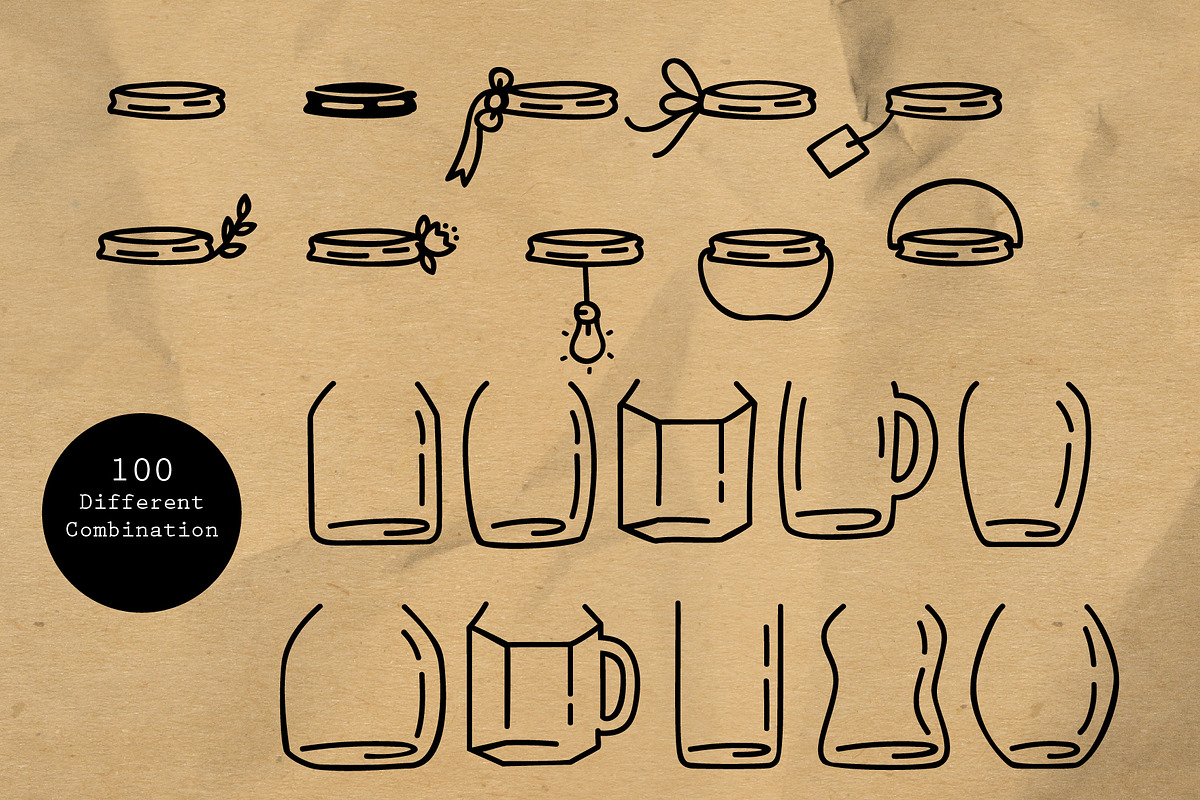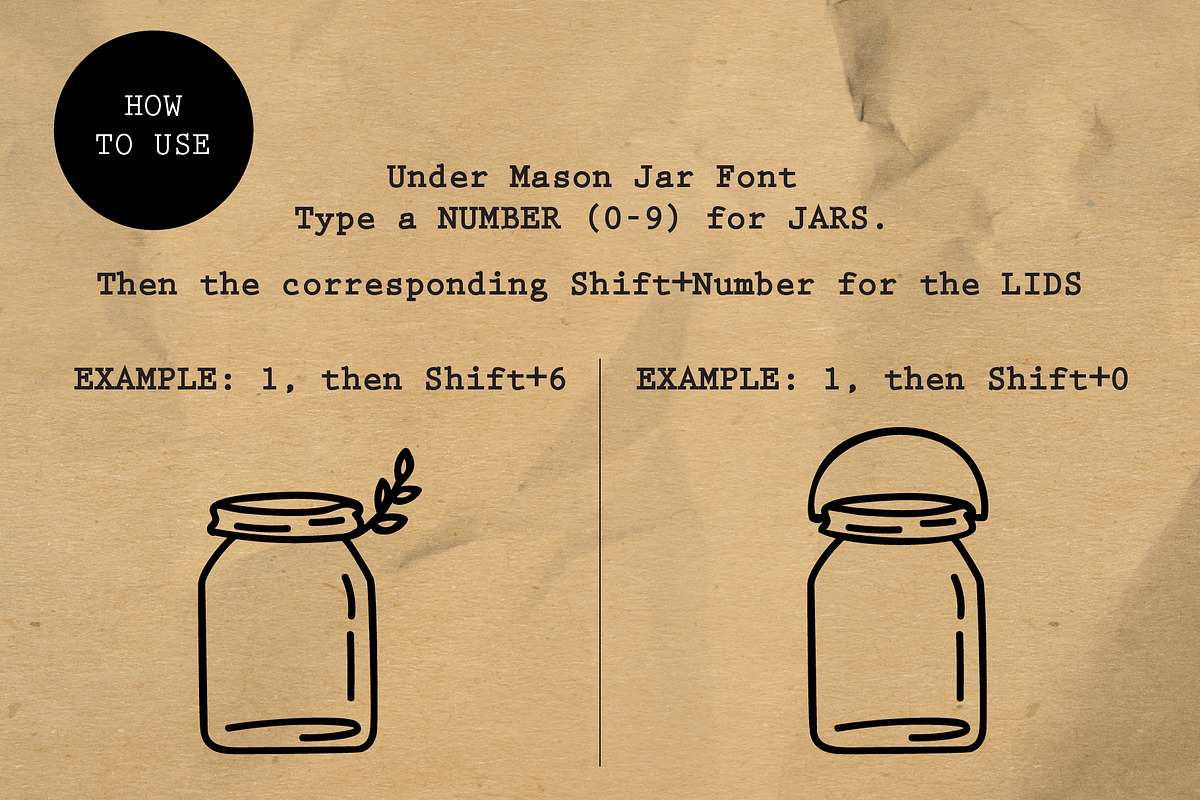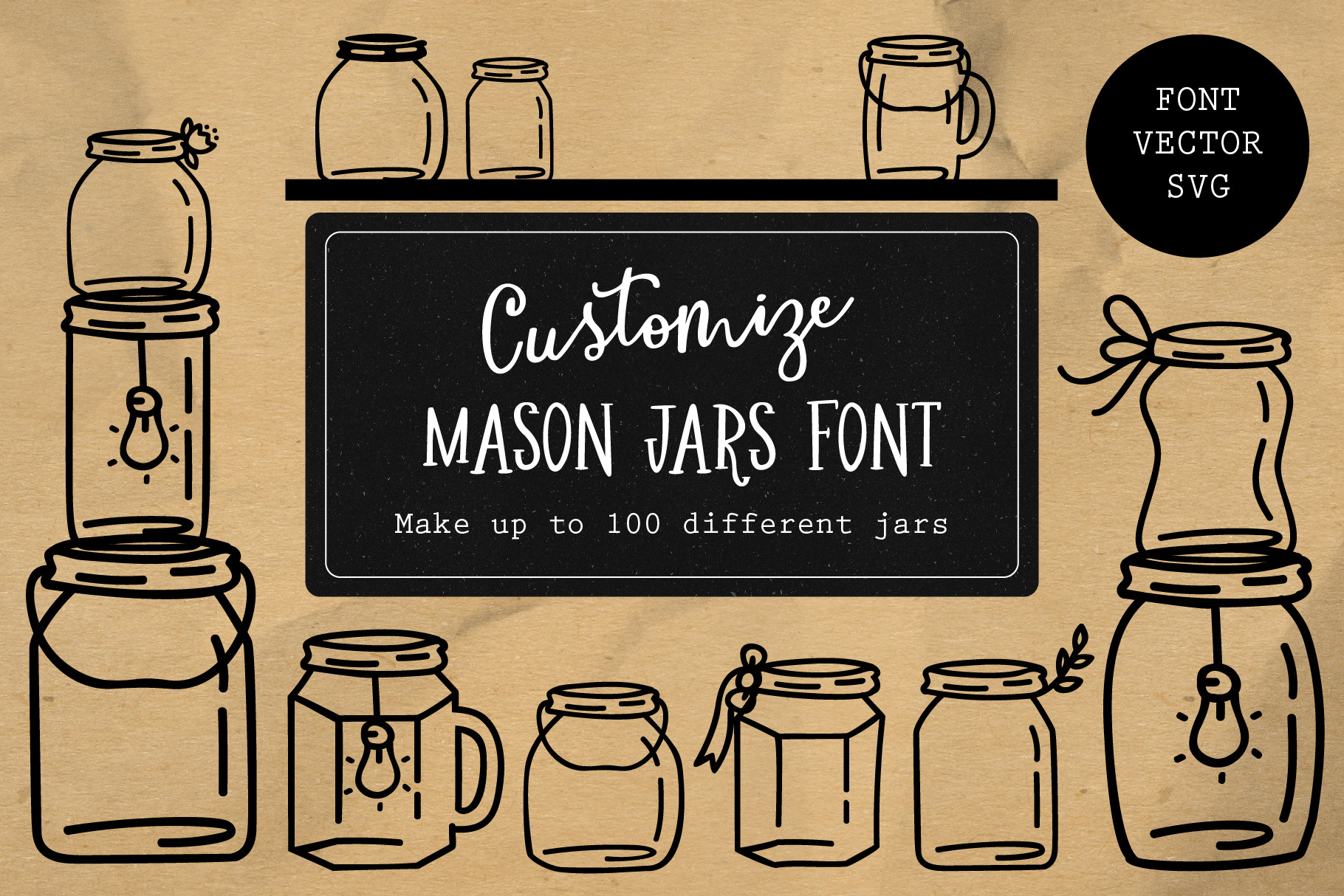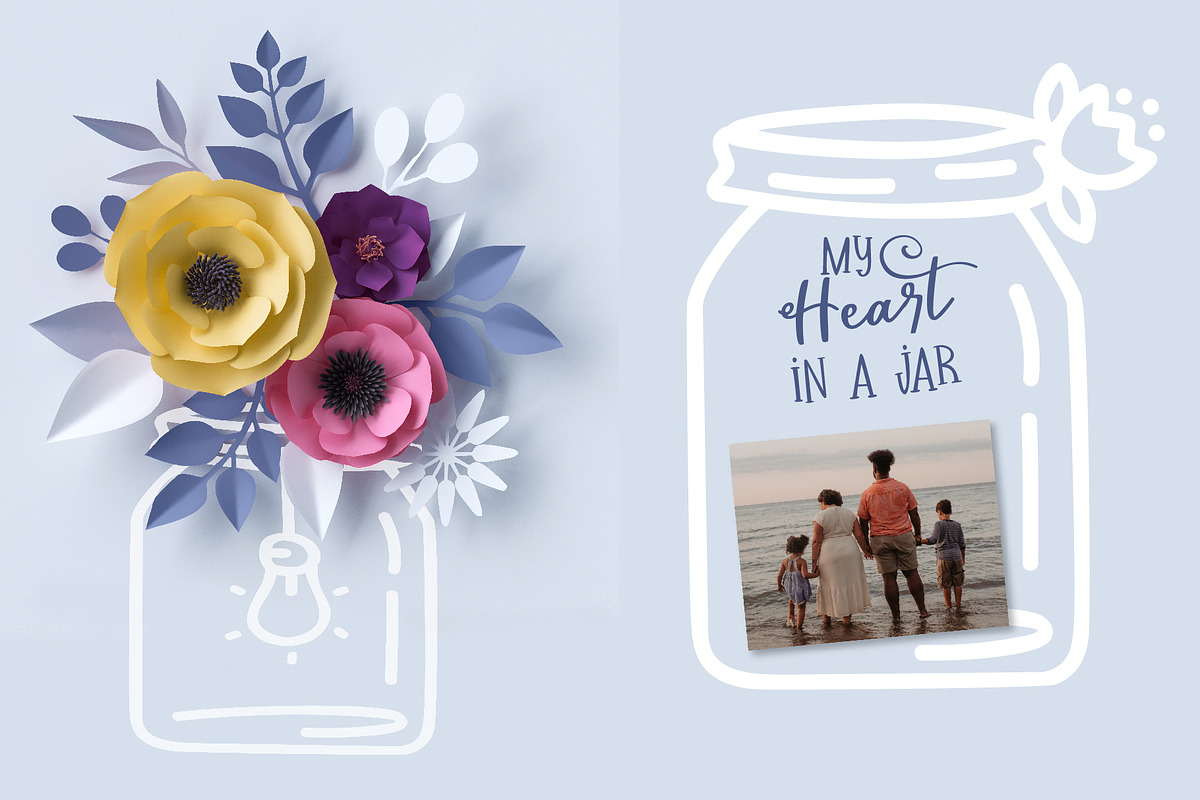
Mason Jar Font and Graphic
I wanted to create some mason jar illustrations, but allow it to be customizable at the same time. So I create a font where you can type out the jars and custom lids separately.